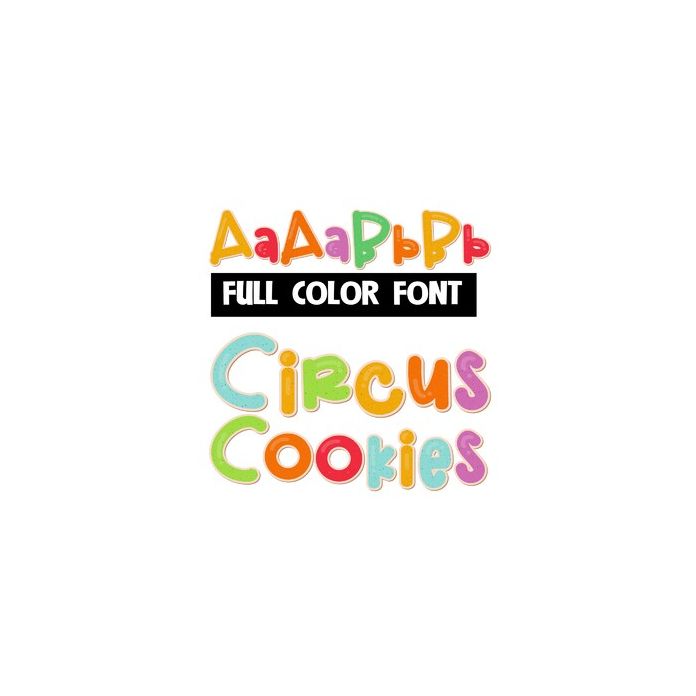
This full-color font features colorful cookies in shades of the rainbow. There is an alt case w/ additional colors you can access through your system or Silhouette's glyph map.